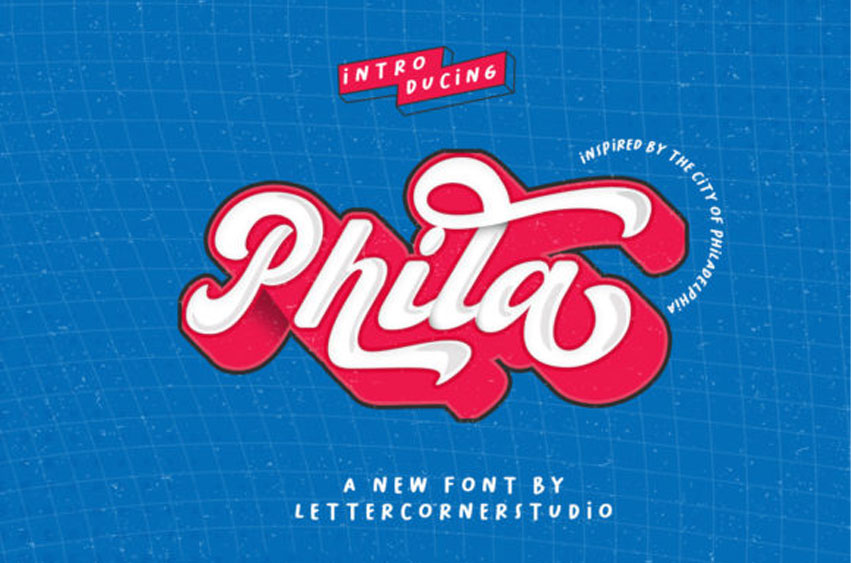
Phila Font is a retro script font that was inspired by typography designs from the 70’s.
This font is PUA encoded which means you can access all glyphs and swashes with ease!